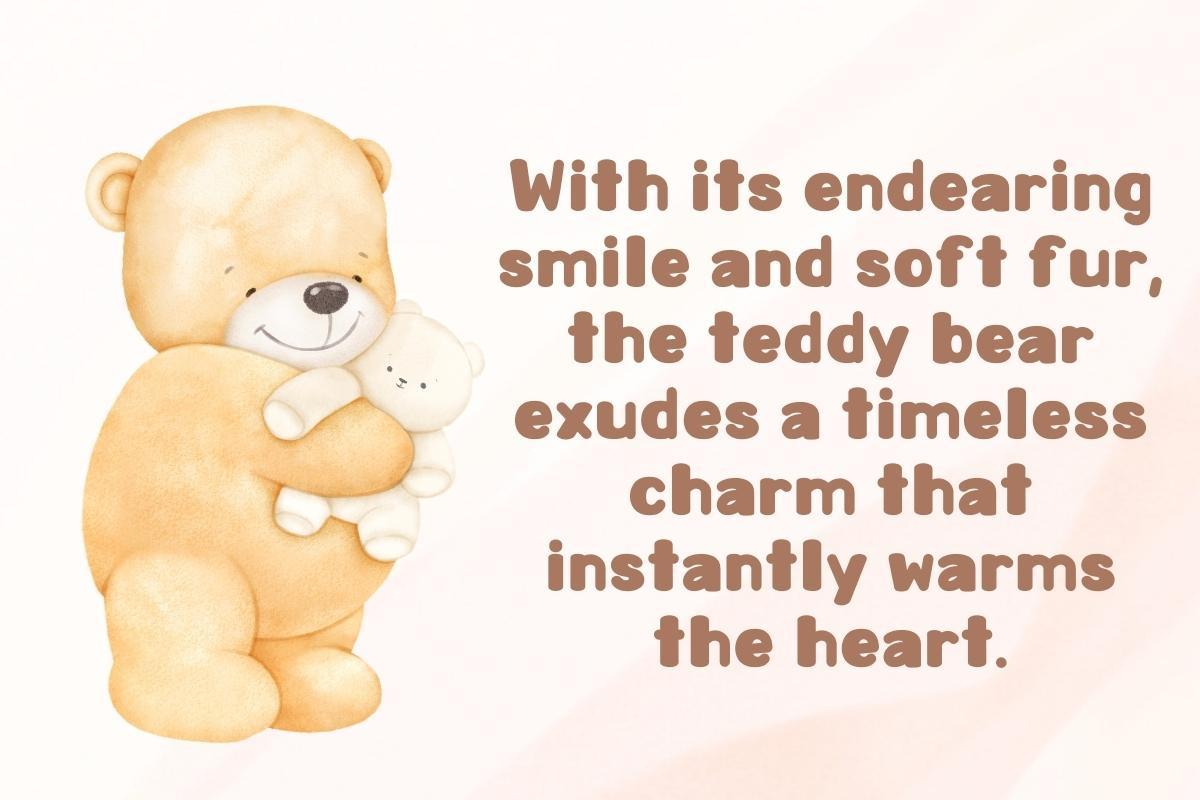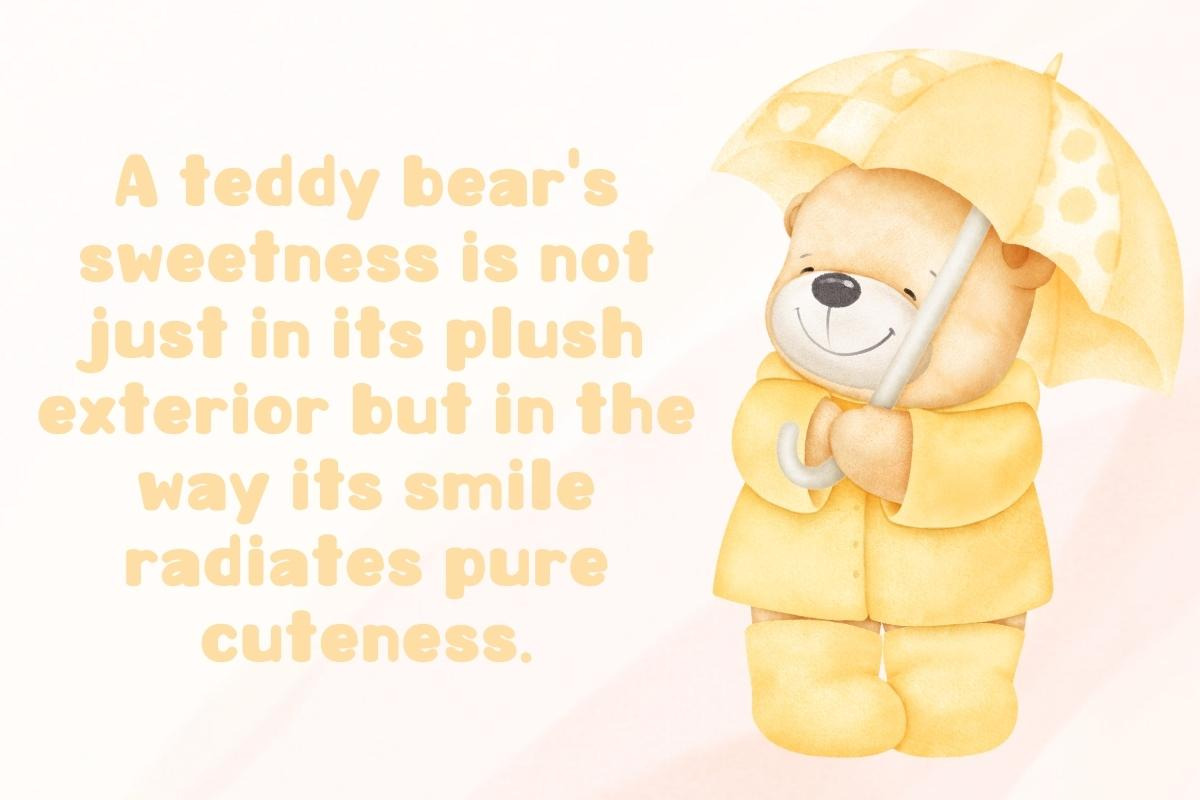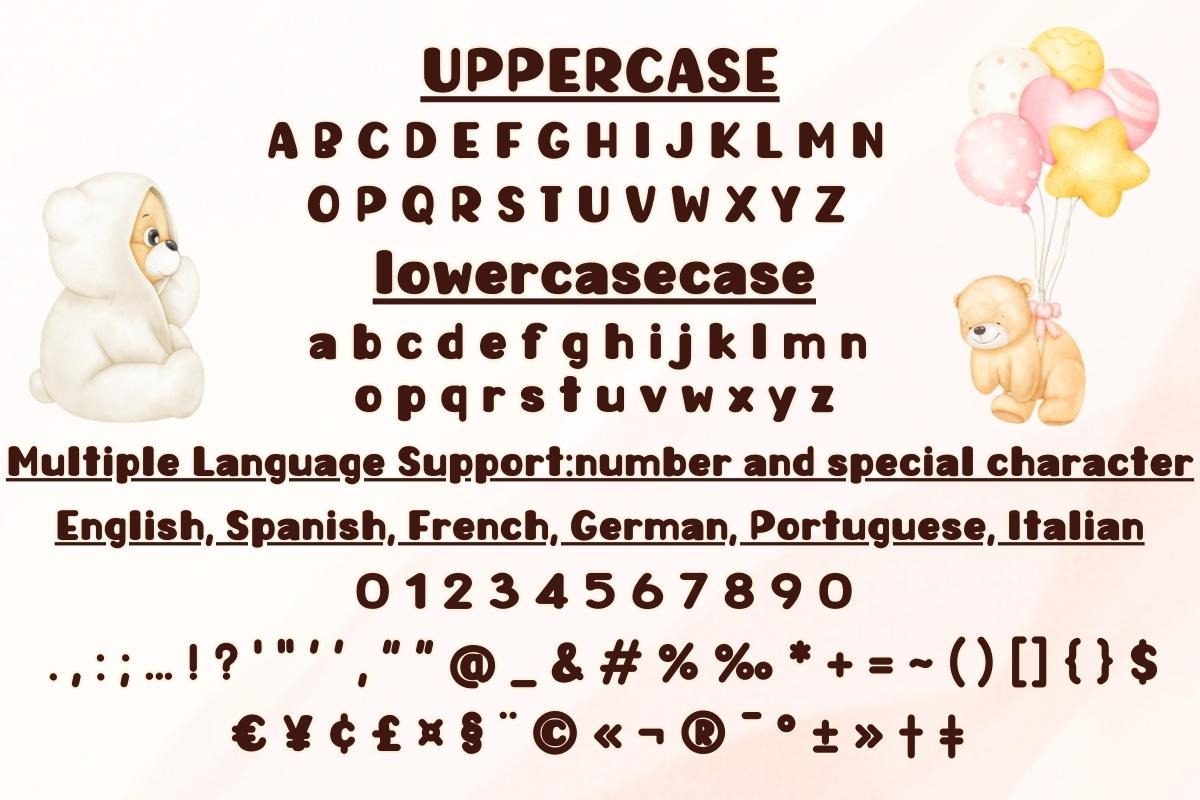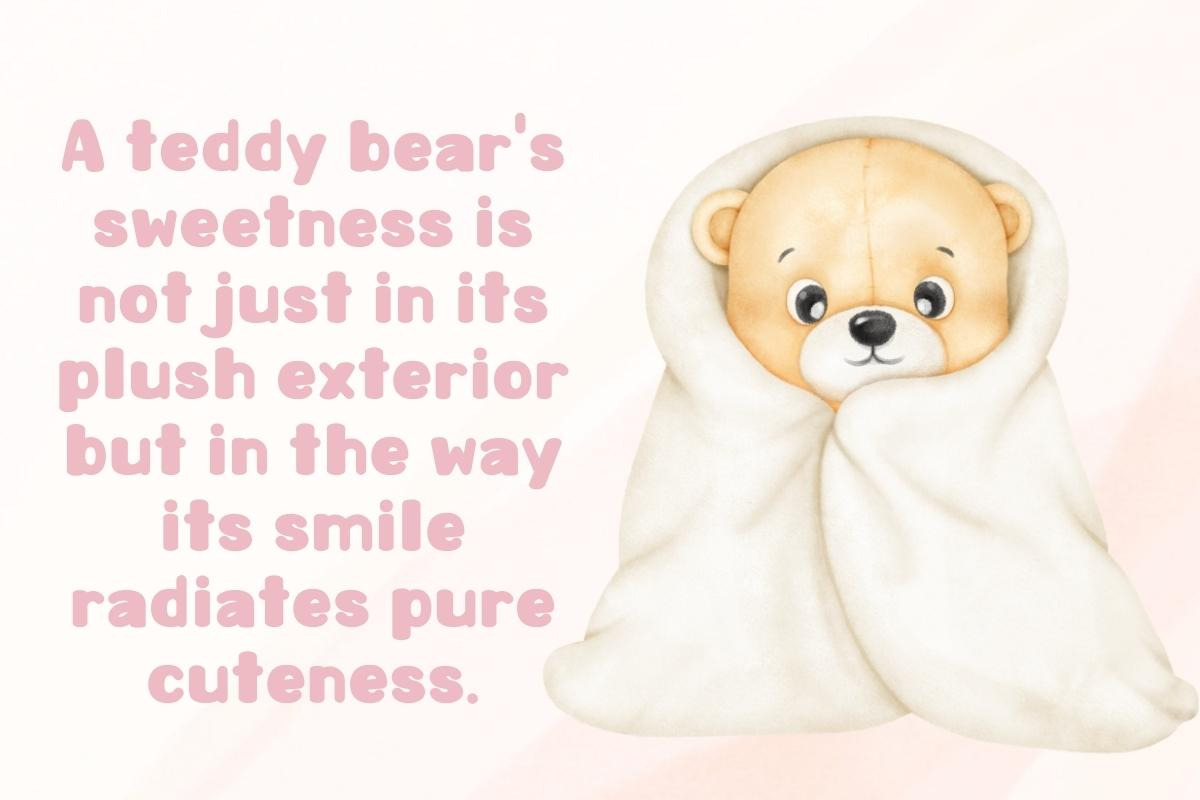
Teddy Smile - Display Handwritting
Introducing "Teddy Smile" – where whimsy meets letters in a dance of adorable characters! 🐻✨ Embrace the charm of this font as it sprinkles joy into your words, making every sentence a cuddle for the eyes. Let Teddy Smile turn your text into a playful masterpiece. Download the delight today! 🌈📝